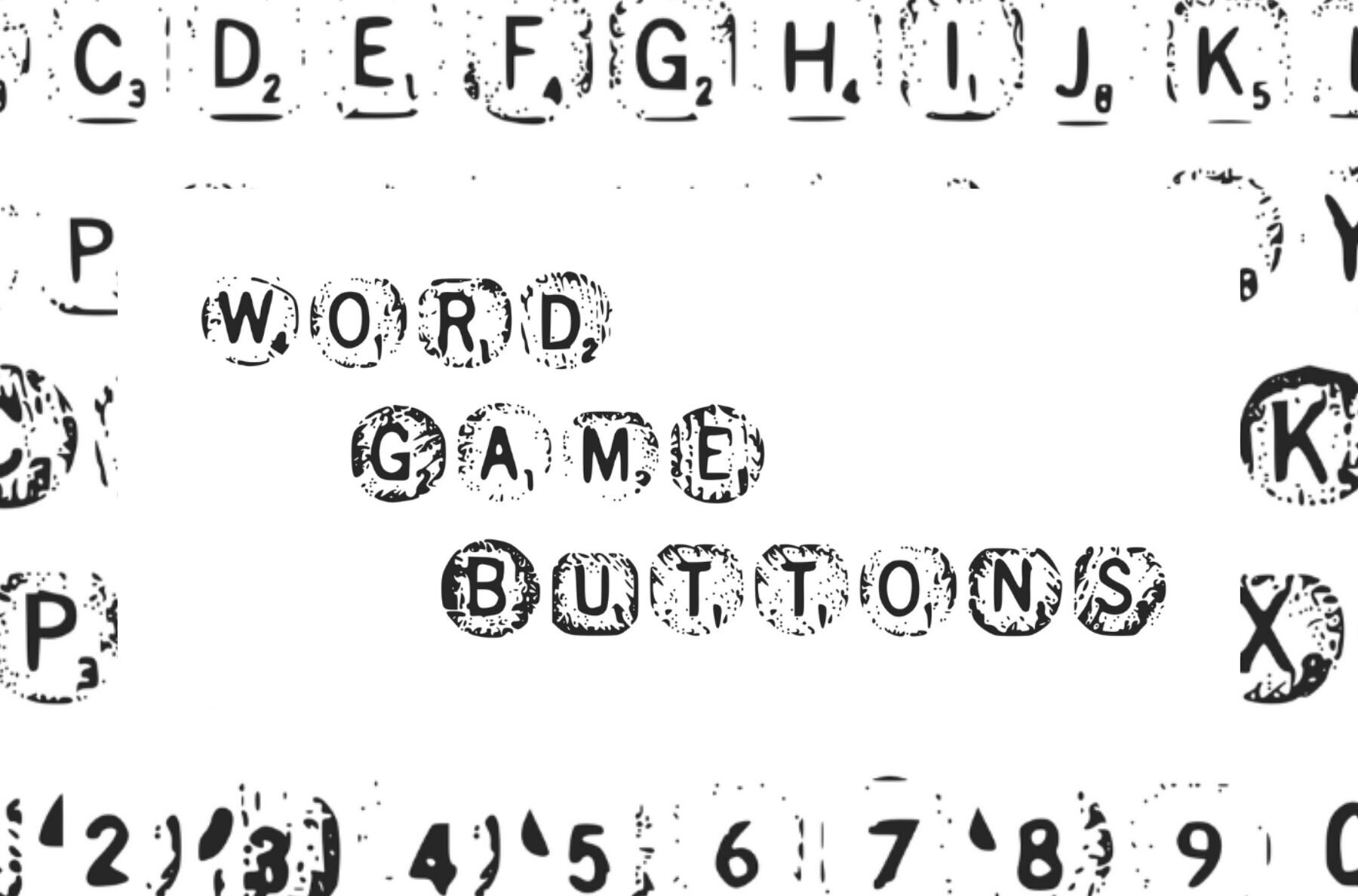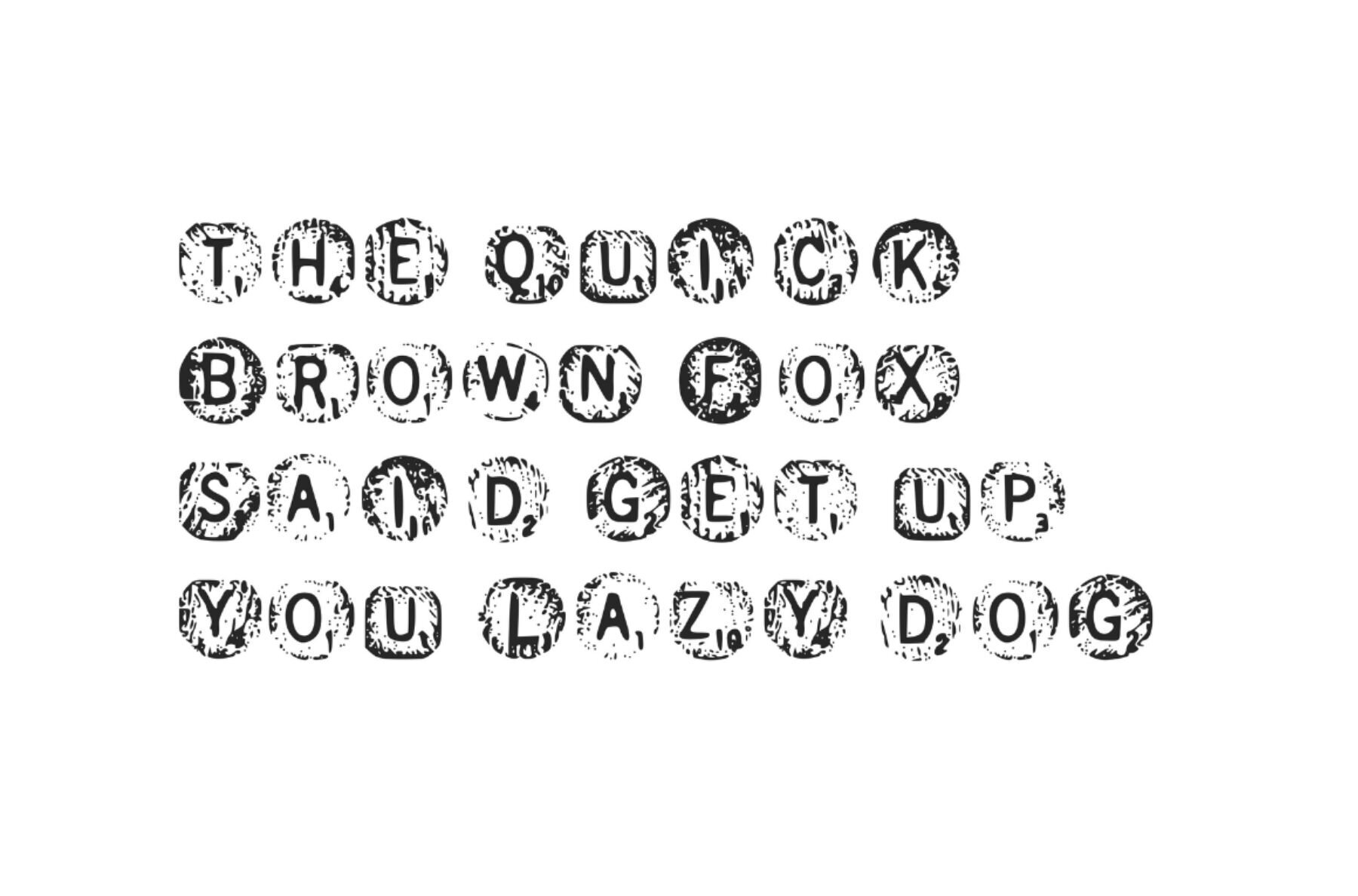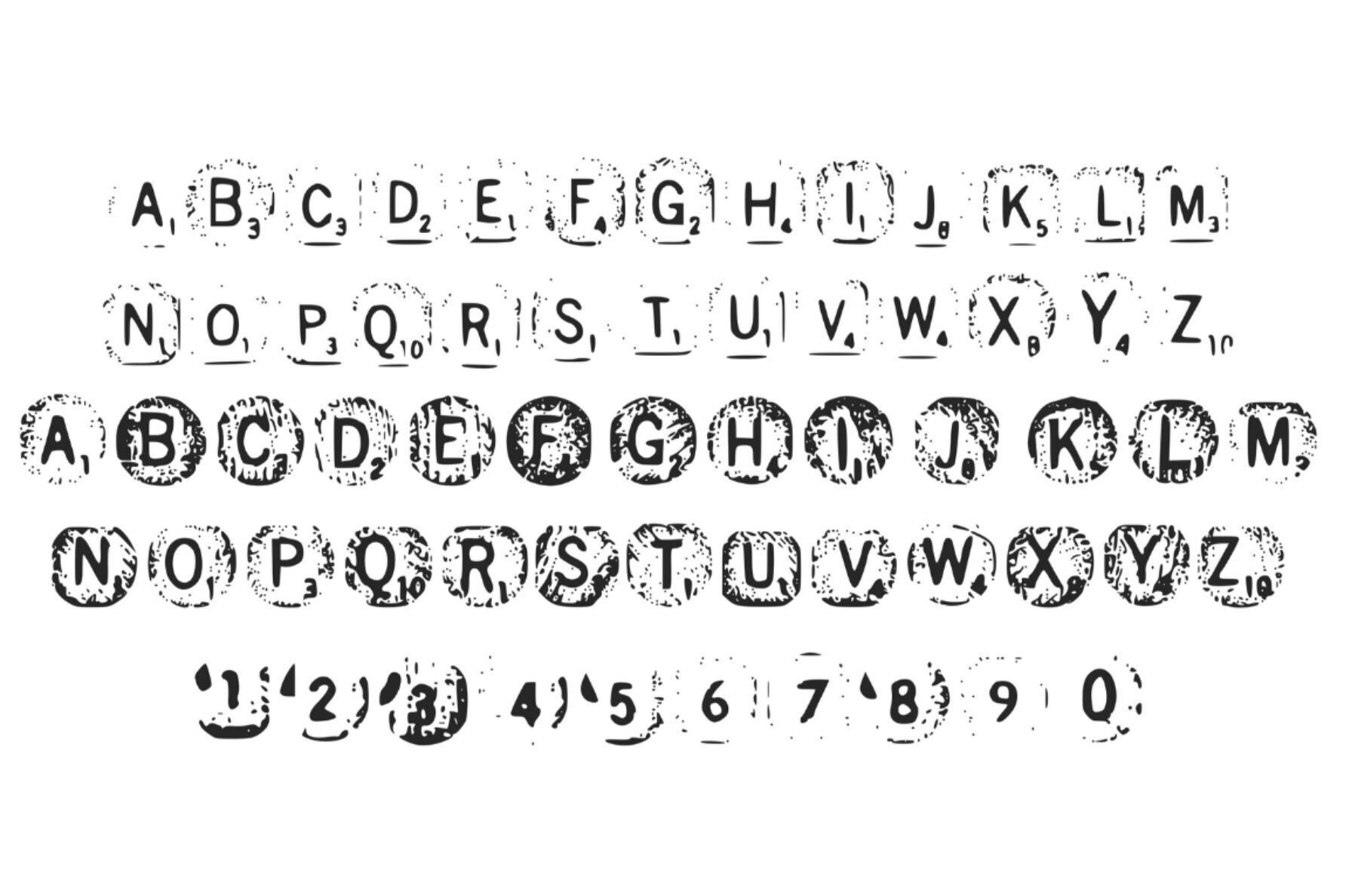
Word Game Buttons Font
Word Game Buttons Regular
Discover the charm of Word Game Buttons, a fascinating collection of wooden letters inspired by a much-loved word board game. Each character is meticulously designed with a rich, wooden texture, presented in circular shapes that create an eye-catching aesthetic. This unique font adds a touch of vintage elegance and shabby-chic style to various projects.Word Game Buttons: A Vintage Display Font